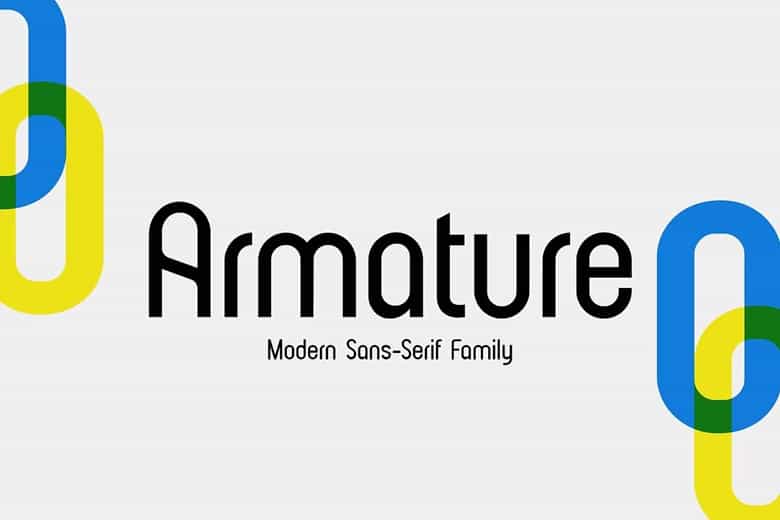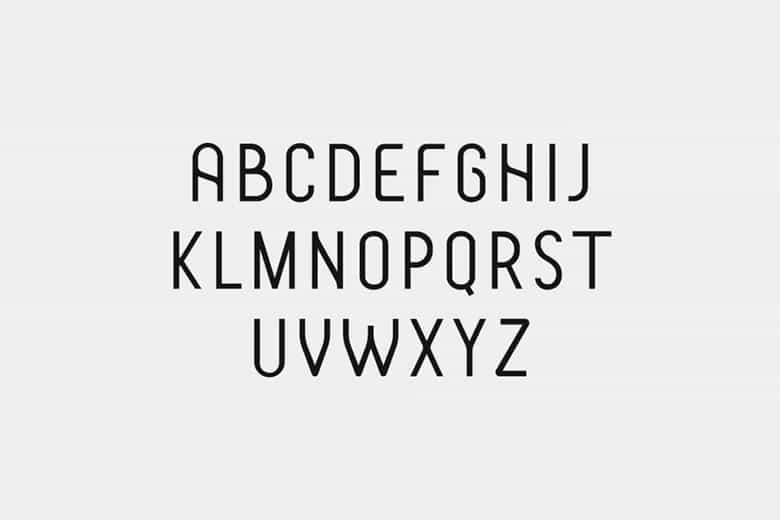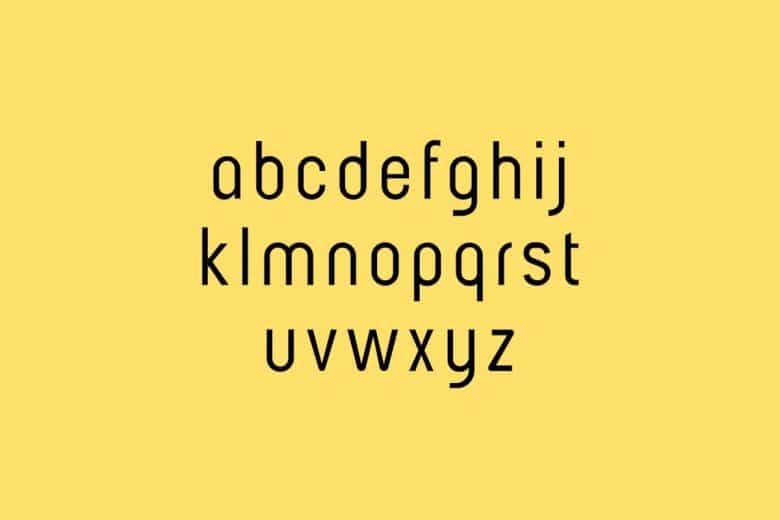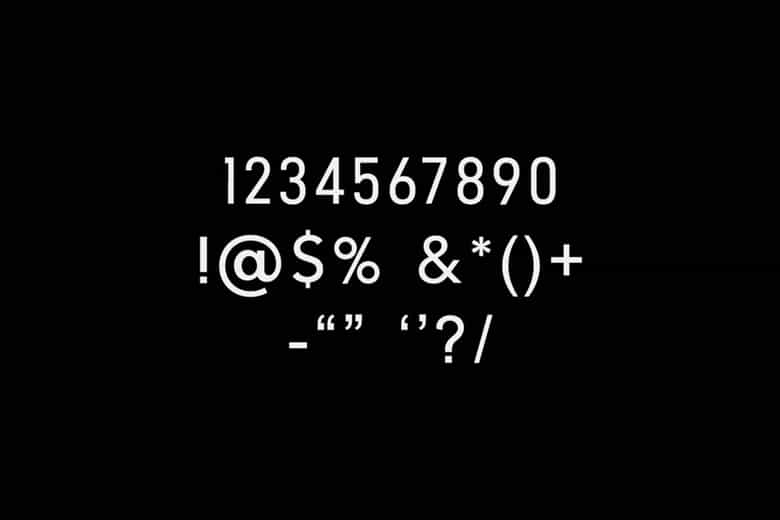
Armature is a new modern sans serif font family that was designed with consideration to the small screen use. This font is perfect for many kinds of designs and works, for instance, logos, weddings, typography quotes, magazines or books’ covers, web headers, branding, and more.